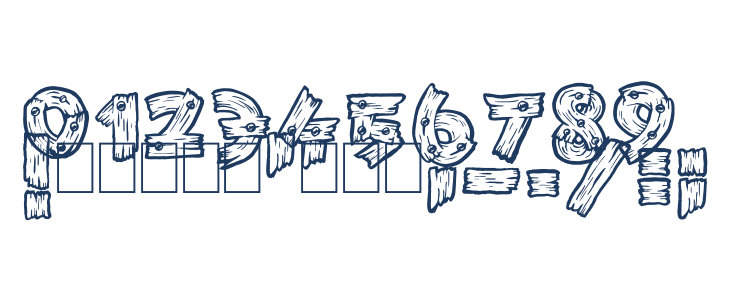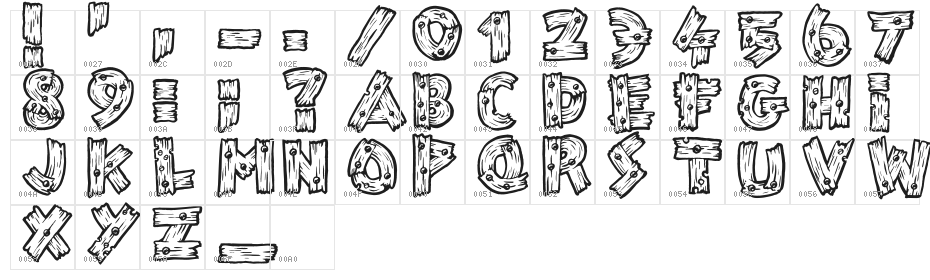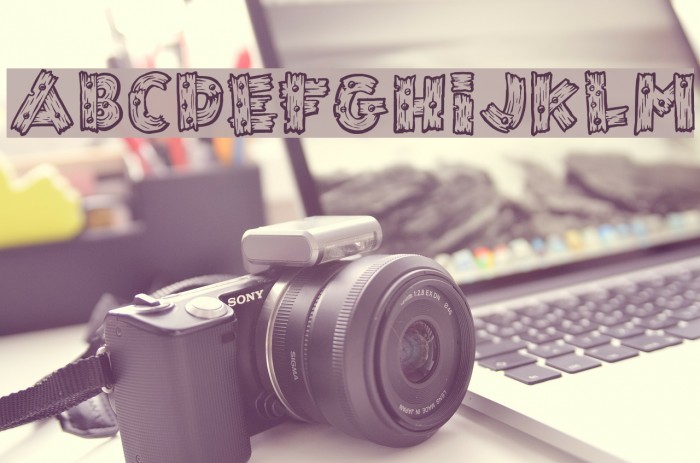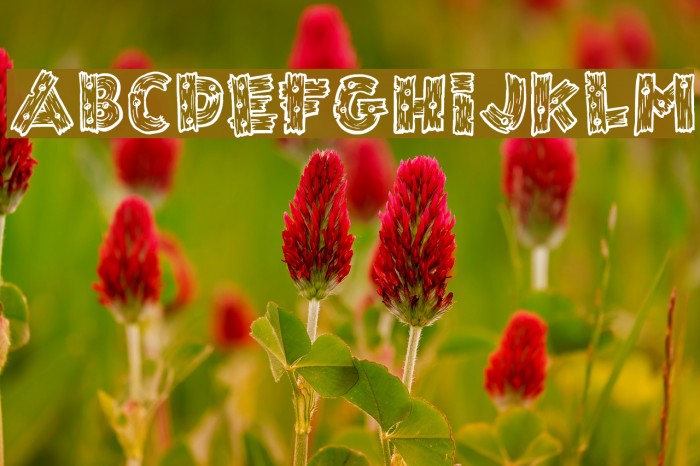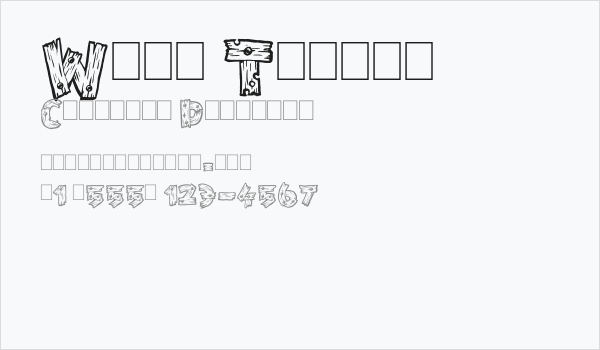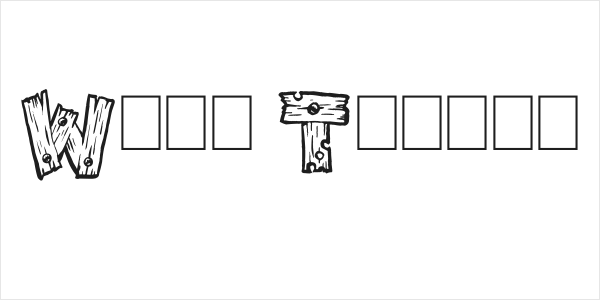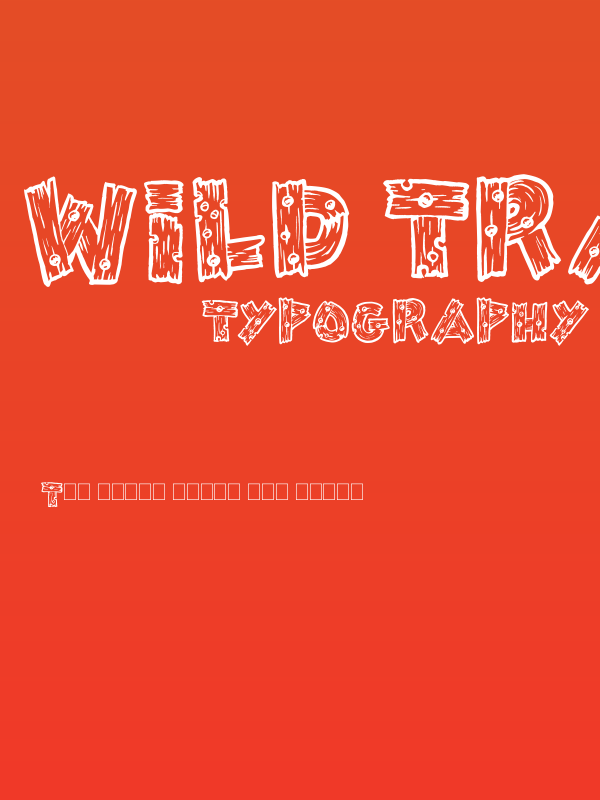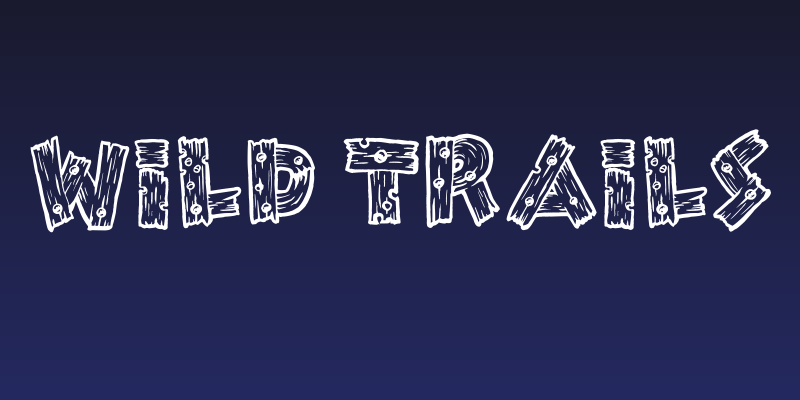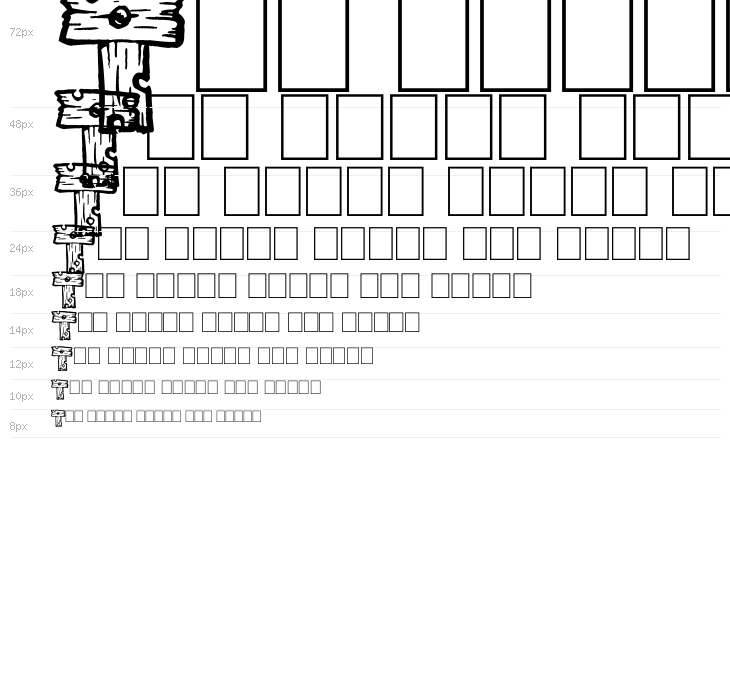
Wild Trails Font
Wild Trails Description
This font features a rugged, textured design that mimics the appearance of wood or bark, giving it a natural and adventurous feel. Each character is uniquely crafted with rough edges and irregular lines, creating a sense of movement and vitality. The uppercase and lowercase letters maintain a consistent style, while the numbers and special characters complement the overall theme. This font is ideal for projects that require a rustic or outdoor aesthetic, such as nature-themed branding, adventure posters, or environmental campaigns. Its bold and decorative style ensures it stands out in any design.
| Proposed Projects | Nature-themed branding, adventure posters, environmental campaigns, rustic invitations. |